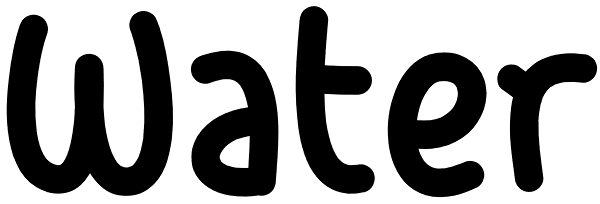
Water
Water is a rounded hand-printed font ideal for graphic project. Usage recommendations : Title, short text, children’s book, poster, book cover, brochure, label, magazine